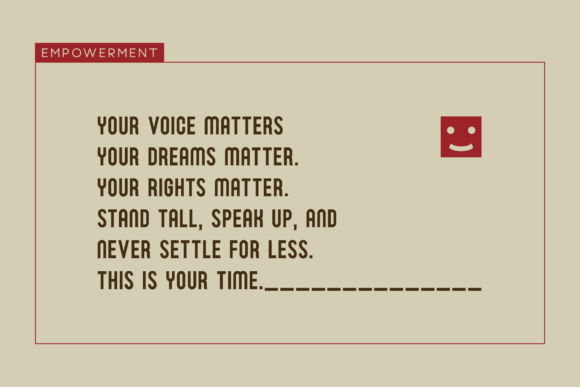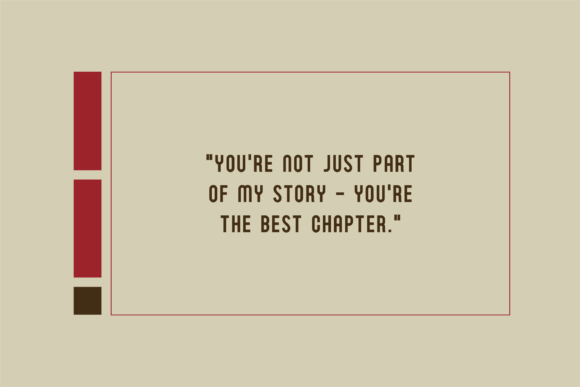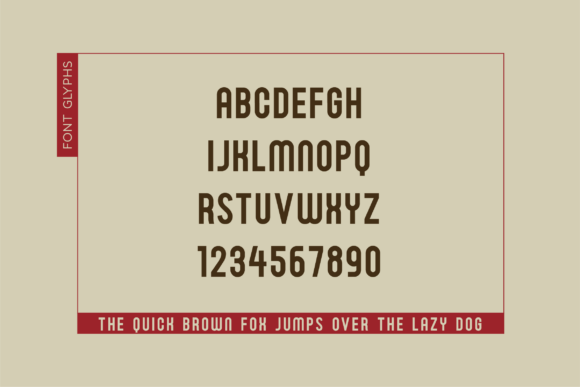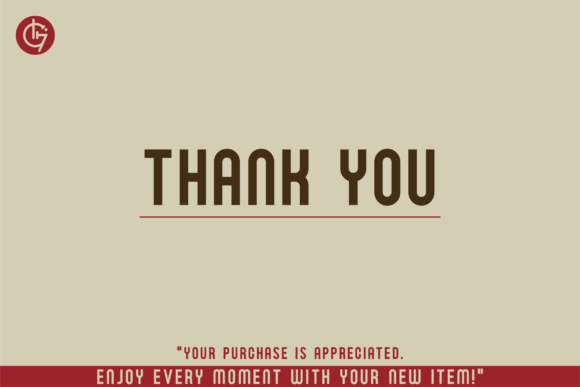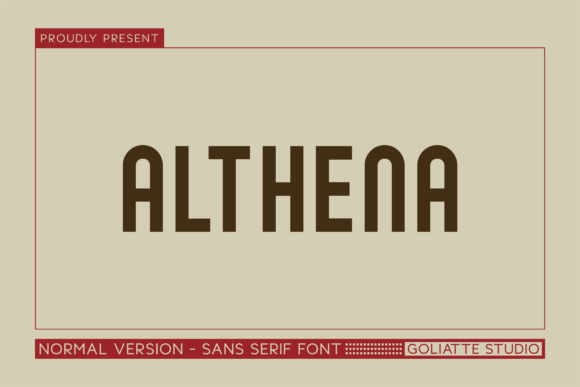
Introducing Althena – A Modern Sans Serif Typeface
In the world of typography, a well-designed font can make all the difference in conveying a message effectively. For modern designers seeking a bold and professional look, Althena is an excellent choice. This all-caps sans serif typeface is engineered to deliver a sense of strength and authority, making it perfect for projects that demand a high level of professionalism and impact.
Design Characteristics of Althena
Althena’s design is rooted in its clean lines and minimalist aesthetic. The bold, all-caps structure ensures that any text or message stands out with clarity and precision. The sharp, crisp edges of this typeface are not just visually appealing; they also contribute to its readability, making Althena suitable for a wide range of applications, from digital interfaces to print materials.
Key Features of Althena
- All-caps design for maximum impact and emphasis on clarity.
- Modern, minimalist style with a focus on readability and versatility.
- Bold, clean lines for a confident and professional appearance.
- Ideal for branding, logos, packaging, and digital design projects.
- Perfect for both large-scale headlines and smaller text blocks, offering flexibility in design.
Versatility of Althena
One of the standout features of Althena is its versatility. The strong, geometric structure of this typeface allows it to be used across various mediums, from digital interfaces like websites and mobile apps to high-end branding and print materials such as brochures, posters, and business cards. This adaptability makes Althena an invaluable asset for brands, agencies, and designers looking for a reliable and impactful font.
Application of Althena
Althena’s applications are vast and varied. For branding and logos, it offers a bold statement that can help a brand stand out. In digital design, its clean and modern look ensures that interfaces are not only functional but also aesthetically pleasing. For print materials, Althena brings a level of sophistication and professionalism that can elevate any project.
Why Choose Althena?
Choosing Althena for your design projects comes with several benefits:
- Professionalism: It adds a level of professionalism and authority to your designs.
- Readability: Its clear and bold design ensures that your message is conveyed effectively.
- Versatility: It can be used across a wide range of design projects and mediums.
- Aesthetic Appeal: Its modern and minimalist style is visually appealing and on-trend.
Althena is a powerful tool for designers and brands looking to make a statement. Its bold, all-caps sans serif design, combined with its clean lines and minimalist aesthetic, makes it an excellent choice for projects that require a sense of professionalism and impact. Whether you’re working on a logo, website, or print material, Althena offers the versatility and readability needed to ensure your message stands out. For brands, agencies, and designers seeking a modern and impactful typeface, Althena is an outstanding option.
In conclusion, Althena stands out as a modern sans serif typeface that brings together boldness, clarity, and versatility. Its design characteristics make it an excellent addition to any design project, offering both aesthetic appeal and functional benefits. As a designer or brand looking to elevate your visual communication, Althena is certainly worth considering.